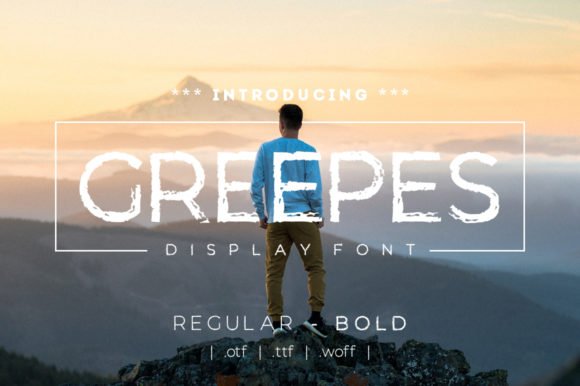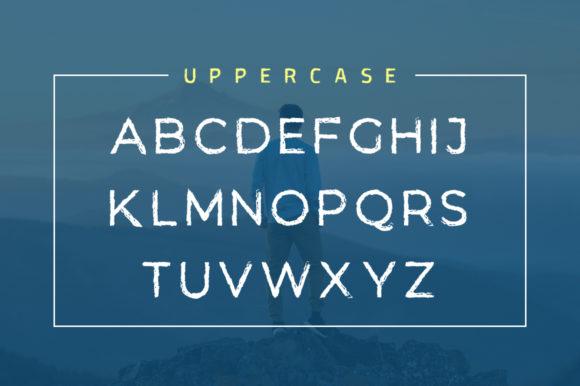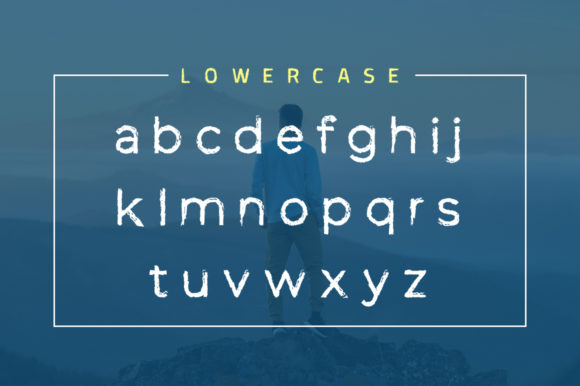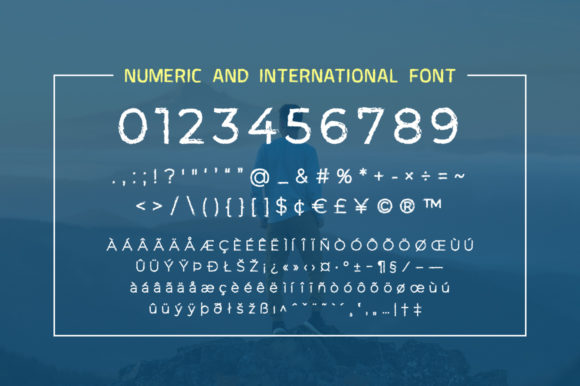
The Perfect Winter Touch for Your Designs
Do you remember the rush of hitting the slopes on a crisp winter morning, the rush of adrenaline as you carve through the powdery snow? For designers, that same rush comes from finding the perfect font to bring their creative vision to life. And, we’re excited to introduce you to the Greepes Font, a winter ski-inspired style font that’s perfect for adding a touch of winter wonder to your designs.
Whether you’re working on a poster, logo, music cover, or clothing design, the Greepes Font is sure to be a hit. Its unique style is not only visually striking but also versatile, making it a valuable addition to any designer’s toolkit. By incorporating the Greepes Font into your projects, you’ll be able to capture the essence of the winter season and bring a sense of excitement and energy to your designs.
Greepes Font Key Features
- Font Family: Greepes Font is a sans-serif font family designed for digital use, available in multiple weights and styles.
- Font Size: The font is designed to be highly legible at small font sizes, making it ideal for digital use, particularly in mobile and web applications.
- Resolution: The font is designed to be resolution-independent, ensuring that it remains clear and legible at various screen resolutions and zoom levels.
- Unique Characteristics: Greepes Font features a unique geometric design with rounded corners and subtle curves, giving it a modern and friendly feel.
- Language Support: The font supports a wide range of languages, including Latin, Cyrillic, and Greek scripts, making it suitable for international use.
Greepes Font Review
Initially, I was drawn to Greepes Font due to its ✨ unique and playful style. The font features a mix of rounded and pointed shapes, giving it a friendly and approachable feel. It’s perfect for designs that require a bit of whimsy and personality.
Some of the strengths of Greepes Font include:
- ✨ Excellent for titles and headings, as it stands out and grabs attention
- ✨ Versatile and suitable for a wide range of design projects, from children’s books to advertising materials
- ✨ The font is highly customizable, allowing designers to adjust the size, color, and style to suit their needs
- ⚠️ The font may not be suitable for professional or formal designs, as it can come across as too casual or playful
- ⚠️ The font’s rounded shapes can make it difficult to read in smaller sizes or at a distance
Overall, Greepes Font is a solid choice for designers looking for a unique and playful font. While it may not be suitable for every project, it’s a great option for designs that require a bit of personality and flair.
Tips for Getting the Most Out of Greepes Font
For the best results, use Greepes Font in bold or italic styles to add emphasis. You can also pair it with other fonts to create a unique visual identity. Experiment with different font sizes and colors to find the perfect combination.
Greepes Font is suitable for a wide range of applications, including:
– Logos and branding materials
– Infographics and data visualizations
– Advertising and marketing materials
Alternatives to “Greepes Font” for Designers
While “Greepes Font” is a unique and modern font, there are other options that can achieve similar effects in different contexts.
Montserrat is a sans-serif font designed for urban environments. It’s perfect for headings and titles where a clean, modern look is desired. Montserrat is more versatile than Greepes Font, as it comes in various weights and styles, making it suitable for a wide range of applications.
Lato is a sans-serif font designed for digital media. It’s a great alternative to Greepes Font for body text, as it’s highly legible and readable on screens. Lato is more readable at smaller font sizes, making it ideal for content-heavy websites and applications.